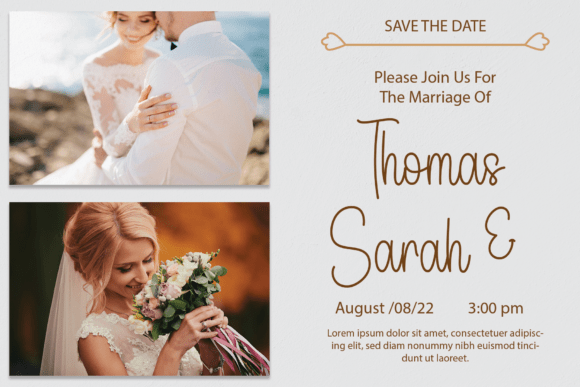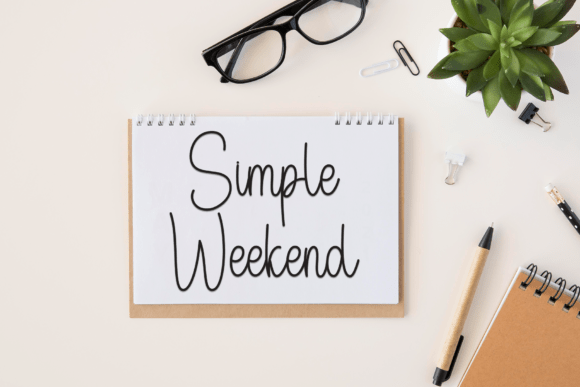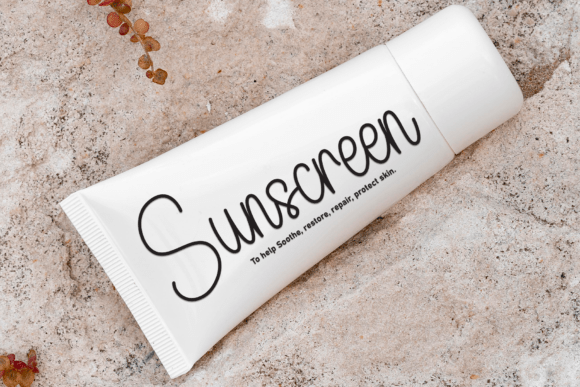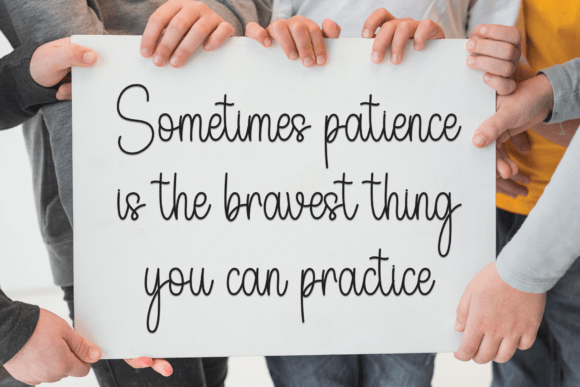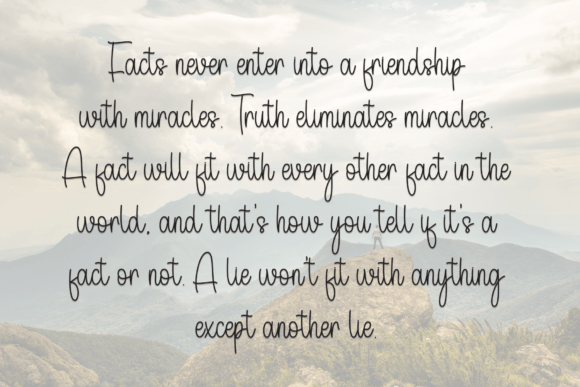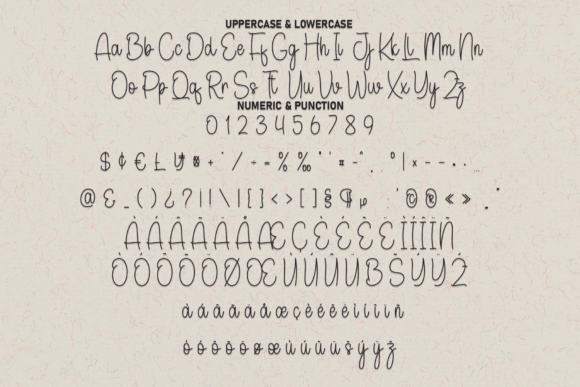
Unveiling the Enchanting Handmade Font: A Delightful Addition to Your Design Arsenal
In the realm of typography, few fonts manage to capture the essence of warmth, charm, and playfulness as effortlessly as the Handmade Font. This beautifully crafted typeface is a handwritten marvel that radiates jovial charm and welcoming warmth, making it an ideal choice for designers and crafters seeking to infuse their creations with a touch of personality and whimsy.
The Charm of Handmade Font
The Handmade Font boasts a captivating charisma that perfectly complements the crafting of wedding invitations, greeting cards, or any vibrant design that necessitates a sprinkle of joy and fantasy. Its natural charm delivers a friendly, lighthearted essence to every word, making each design irresistibly enticing. Whether you’re a seasoned designer or a DIY enthusiast, this font is sure to become a staple in your design arsenal.
The Handmade Font is a versatile typeface that lends itself beautifully to a wide range of creative projects. Here are just a few ideas to get you started:
- Wedding Invitations: Add a touch of romance and whimsy to your wedding invitations with the Handmade Font. Its elegant, cursive strokes and playful charm make it perfect for couples looking to set the tone for a joyful and unforgettable celebration.
- Greeting Cards: Whether you’re creating birthday cards, thank-you notes, or holiday greetings, the Handmade Font is sure to bring a smile to the recipient’s face. Its friendly, approachable vibe makes it ideal for conveying warm and fuzzy feelings.
- Branding and Packaging: The Handmade Font can also be used to add a personal touch to branding and packaging designs. Its unique charm and character make it perfect for businesses looking to stand out from the crowd and establish a strong emotional connection with their customers.
What Makes Handmade Font So Special?
So, what sets the Handmade Font apart from other typefaces? Here are a few key features that make it a standout:
- Unique Character: The Handmade Font boasts a distinctive, handwritten quality that gives it a unique character and charm.
- Playful and Whimsical: This font is playful, whimsical, and full of personality – making it perfect for designs that require a touch of fun and fantasy.
- Easy to Read: Despite its playful nature, the Handmade Font is remarkably easy to read, making it suitable for both digital and print applications.
- Highly Versatile: This font can be used in a wide range of creative projects, from wedding invitations and greeting cards to branding and packaging designs.
Tips for Using Handmade Font Effectively
To get the most out of the Handmade Font, here are a few tips to keep in mind:
- Use it Sparingly: While the Handmade Font is undoubtedly charming, it’s best used sparingly to avoid overwhelming the design. Try pairing it with a simpler font for body text or using it as an accent font to add visual interest.
- Experiment with Colors: The Handmade Font looks beautiful in a range of colors, from soft pastels to bold brights. Don’t be afraid to experiment and find the perfect hue to match your brand or design aesthetic.
- Pay Attention to Kerning: As with any font, pay attention to kerning and tracking to ensure that the text looks balanced and visually appealing.
The Handmade Font is a quintessentially delightful typeface that is sure to bring a touch of magic to your designs. Its captivating charisma, playful charm, and welcoming warmth make it perfect for a wide range of creative projects, from wedding invitations and greeting cards to branding and packaging designs. With its unique character, highly versatile nature, and ease of use, this font is sure to become a favorite among designers and crafters alike. So why wait? Unveil the enchanting Handmade Font in your designs today and watch as every creation leaves a vibrant sparkle!